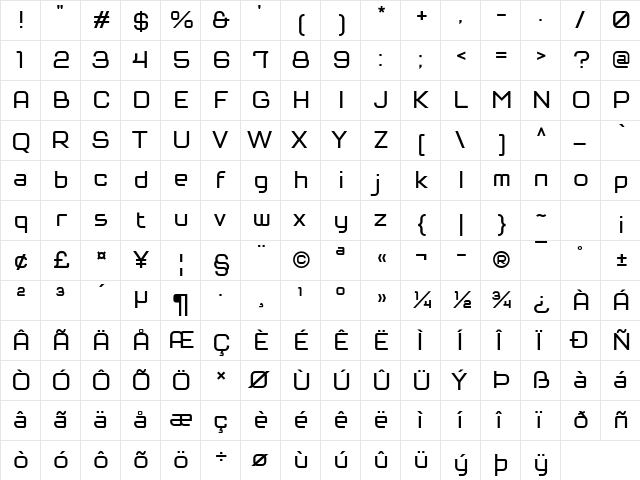
Tenika Regular
| Designer | Wahyu S. Adi Wibowo |
Design Context for Tenika Typeface
Tenika is a composed and adaptable typeface that performs quietly and consistently across a wide range of design contexts.